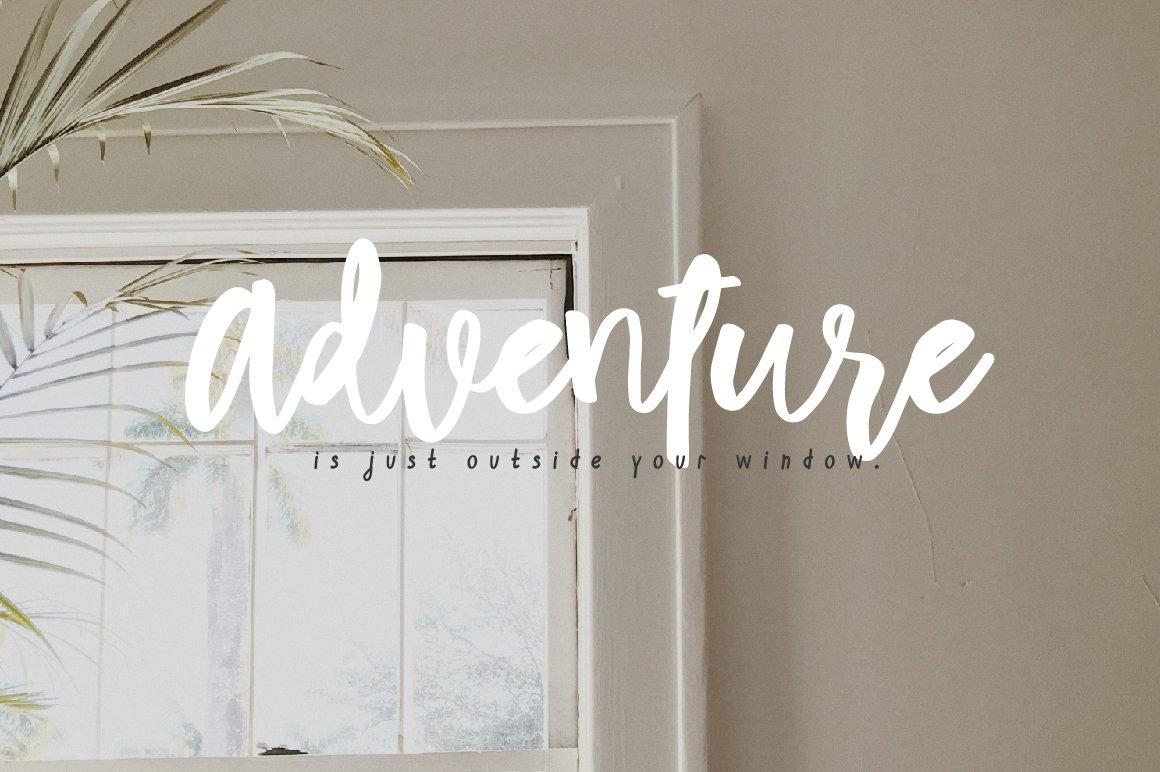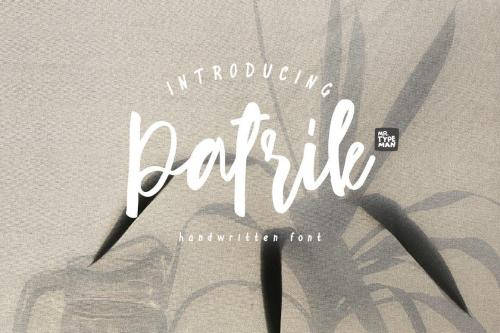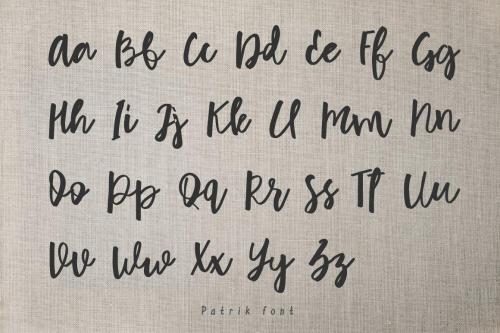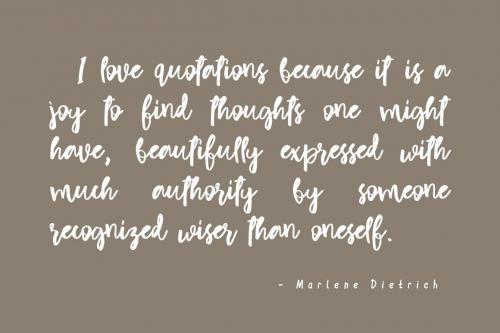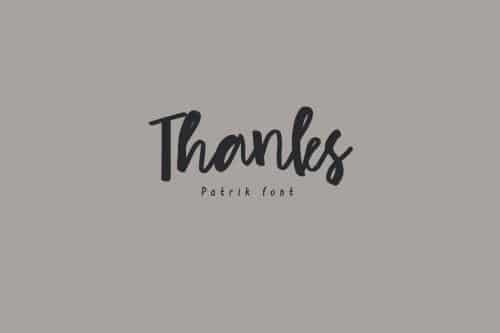
Introducing my new font Patrik with its pleasant and elegant style. If you want to add a certain charm, appeal and allure in your projects, Patrik is just what you need.
Patrik comes with uppercase, lowercase, standard punctuation and special letters for most of the European languages.
- Designer: Mr.Typeman